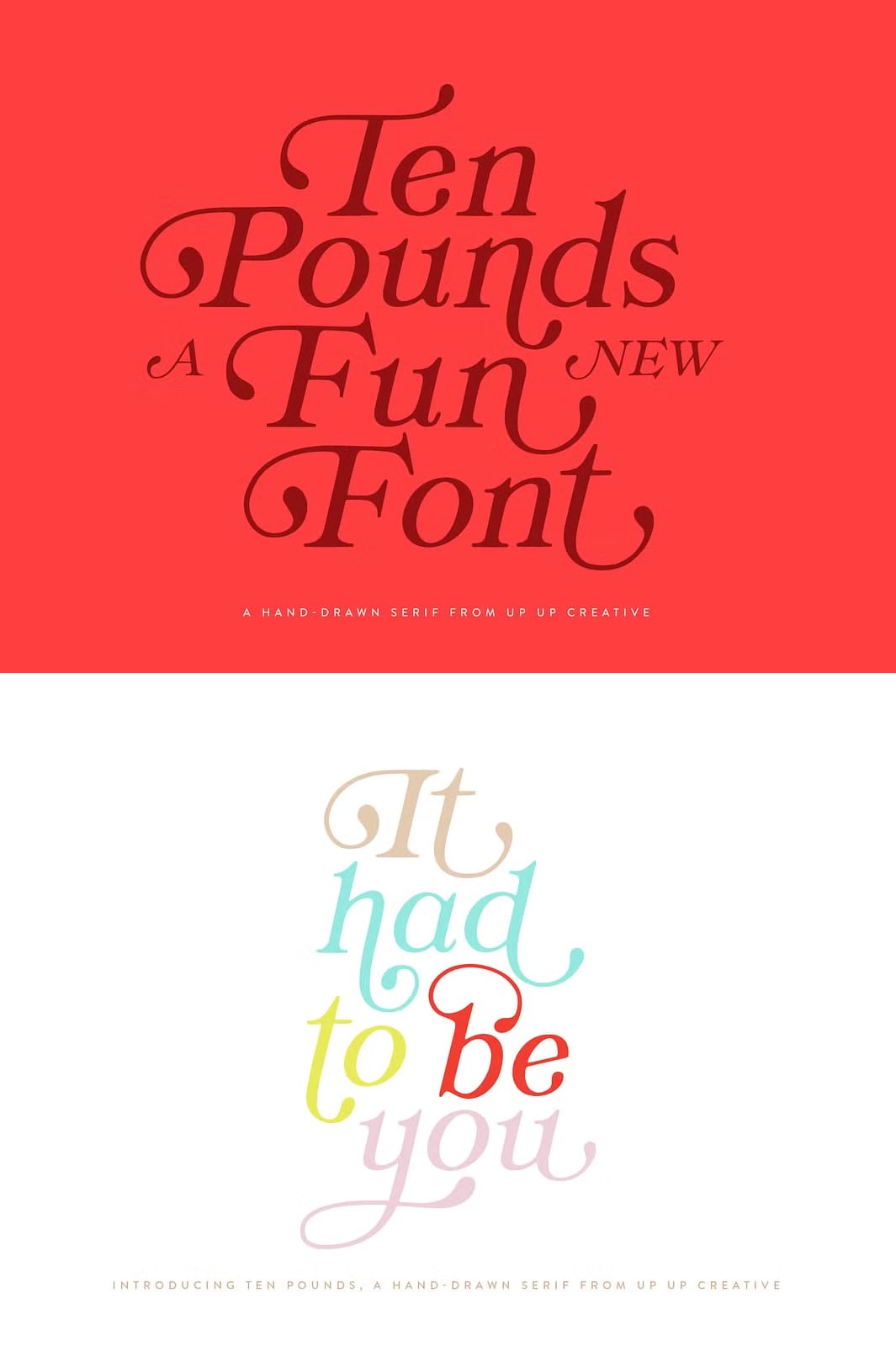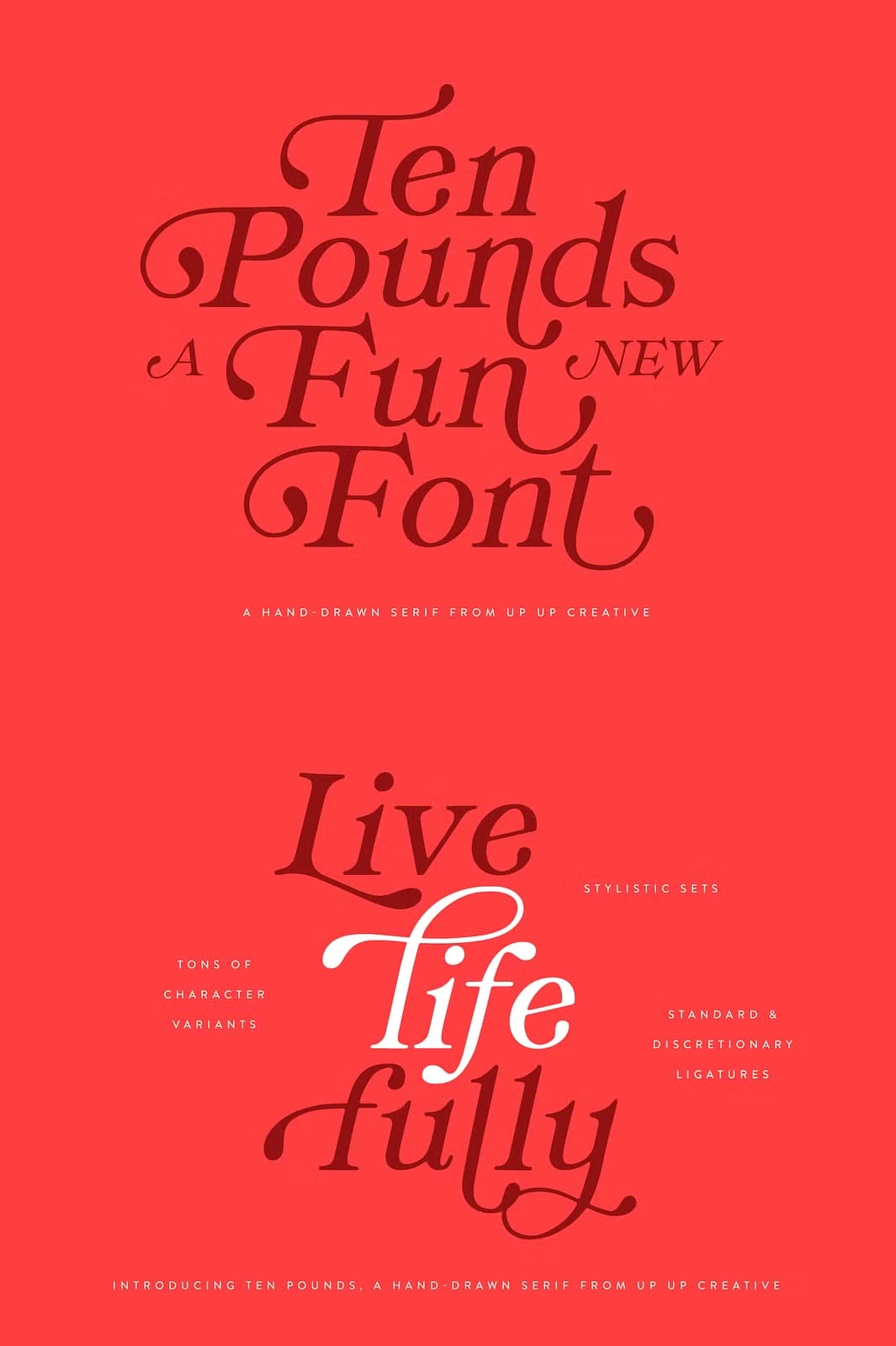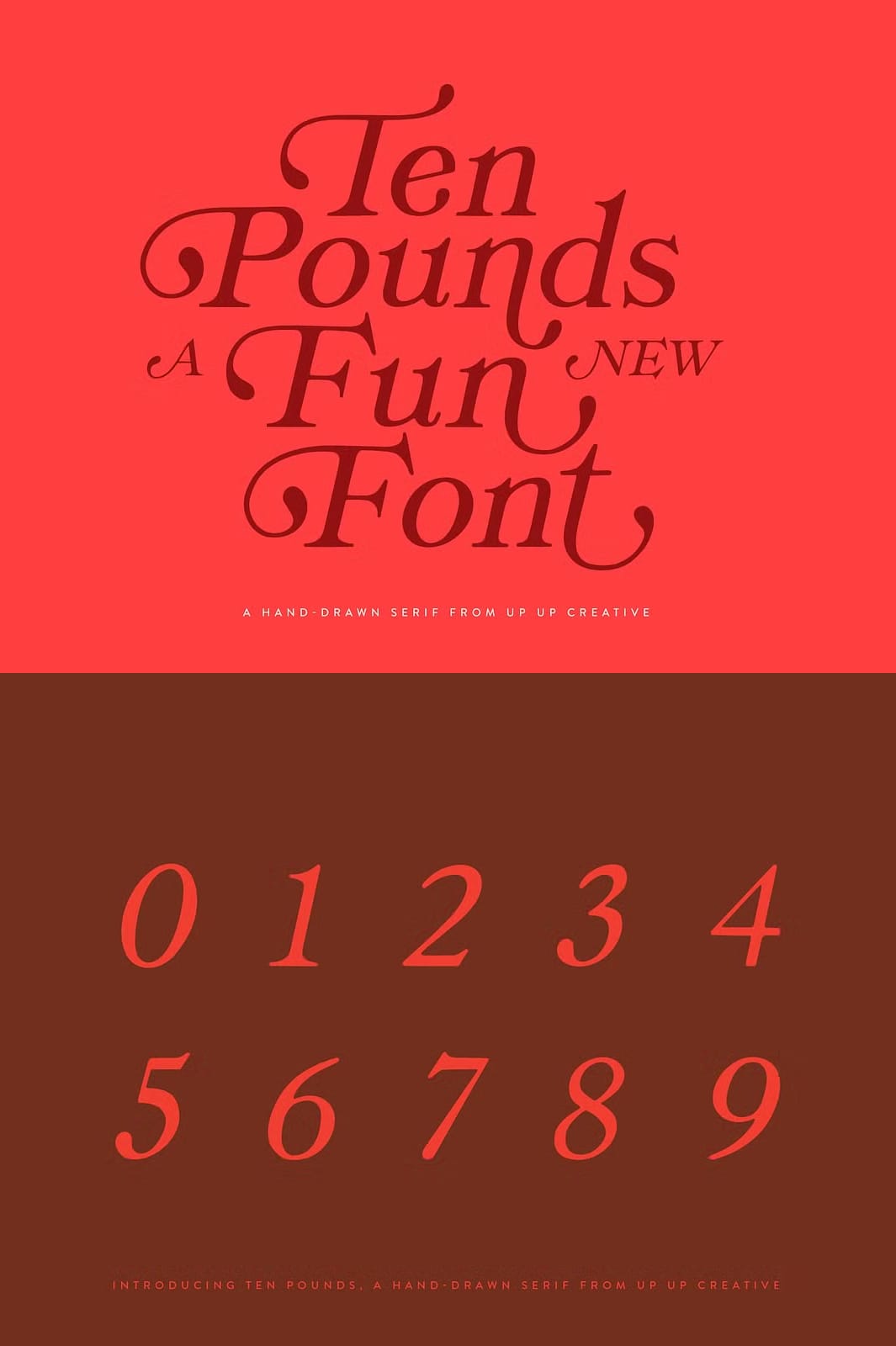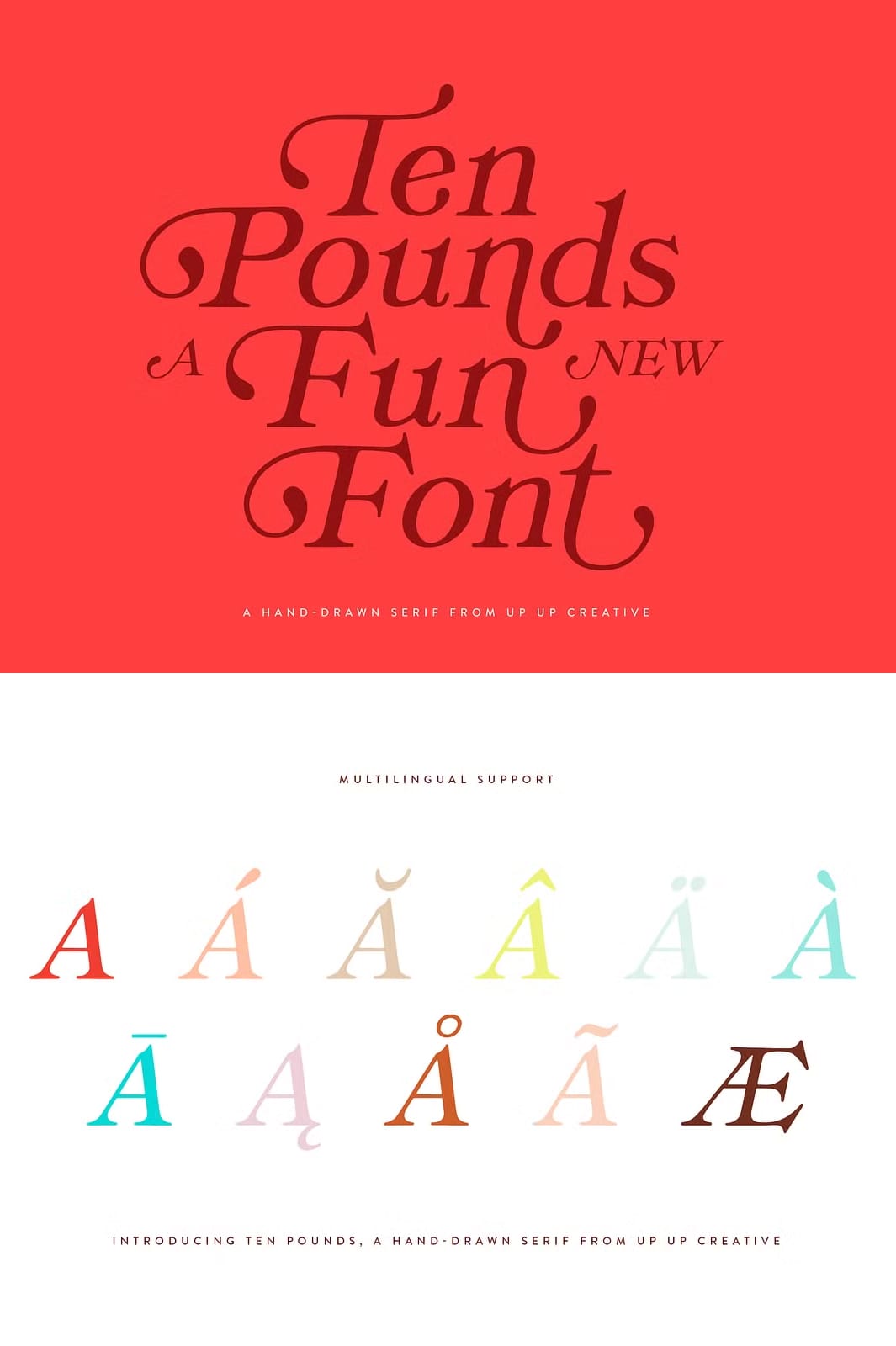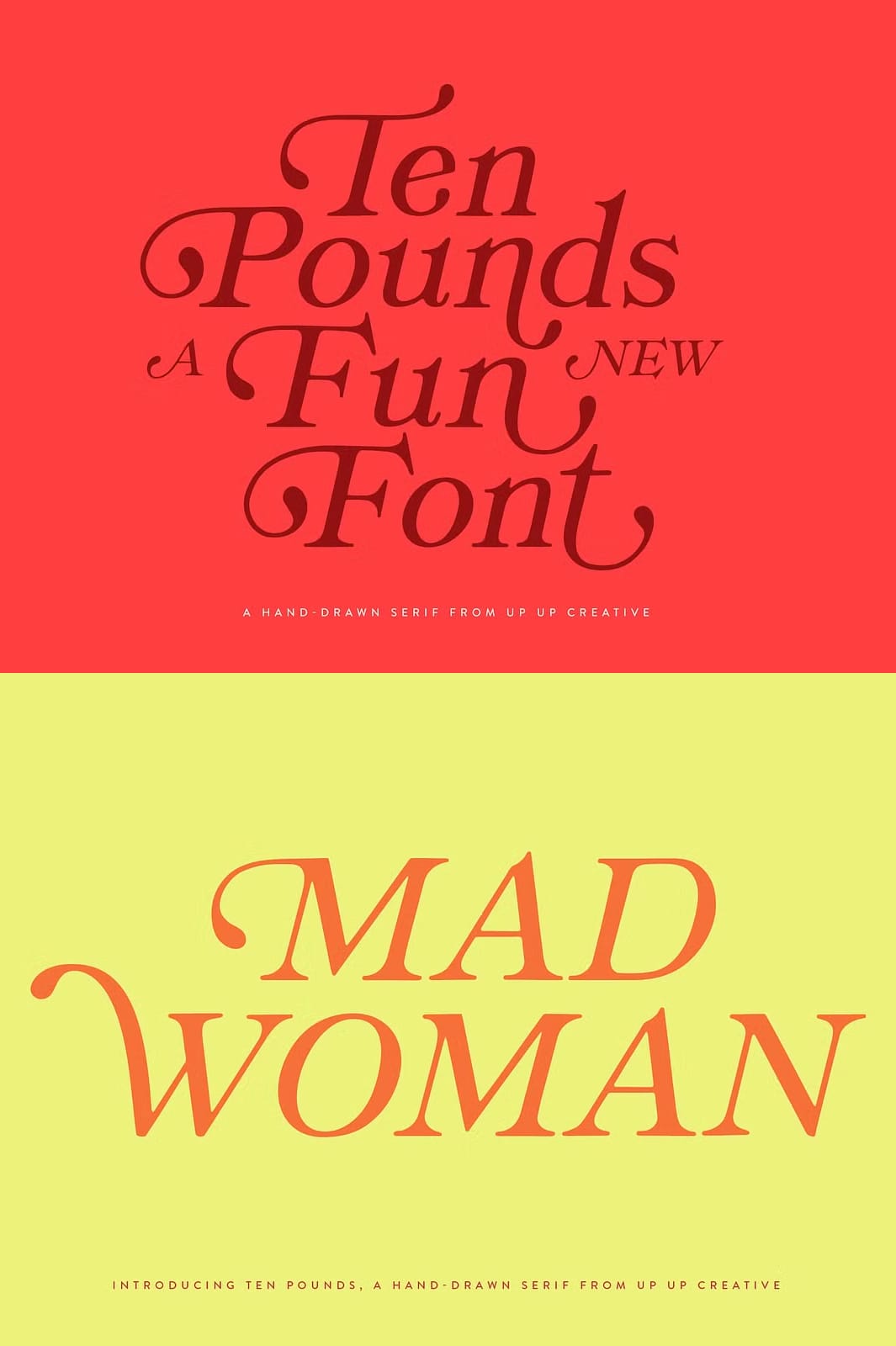
Ten Pounds, A Hand-Drawn Font
A Typeface Full of Personality and Versatility
Ten Pounds is a lively, hand-drawn serif font bursting with character and charm. Designed to bring a playful yet sophisticated touch to your creative projects, this font is perfect for a wide range of applications including branding, poster design, t-shirts, invitations, children’s design, and editorial layouts. Its unique style makes it stand out, adding warmth and personality to any design.
Extensive Glyph Set and Advanced OpenType Features
With over 1300 glyphs and more than 100 ligatures, Ten Pounds offers an impressive variety of typographic options. The font supports a rich set of OpenType features such as stylistic sets, character variants, initial and final forms, and multilingual support including multiple currency symbols. These features allow you to customize your typography with ease and precision, creating truly unique and expressive text compositions.
Perfect for a Wide Range of Creative Projects
Ten Pounds is ideal for designers looking to infuse their work with a handcrafted, artistic feel. Its playful yet elegant style suits:
• Branding and logo design
• Posters and promotional materials
• T-shirt and apparel graphics
• Invitations and greeting cards
• Children’s books and educational materials
• Editorial and magazine layouts